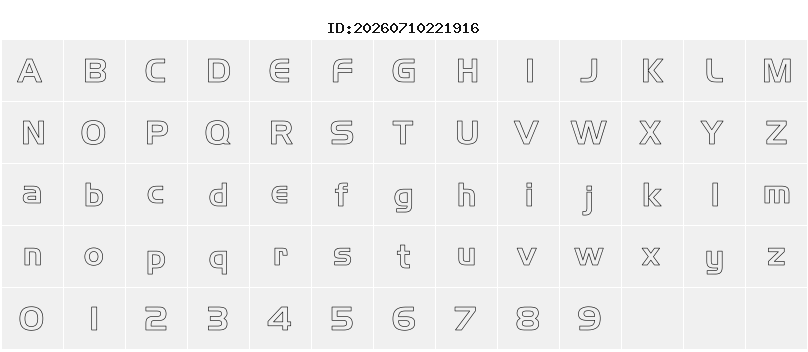
Handel Gothic Hollow Preview
• Font Name: Handel Gothic Hollow
• Full Font Name: Handel Gothic Hollow
About Handel Gothic Hollow.ttf
Handel Gothic Hollow.ttf is a modern, elegant sans-serif font designed for ultimate readability and visual harmony. Perfect for branding, headlines, web design, and print materials.